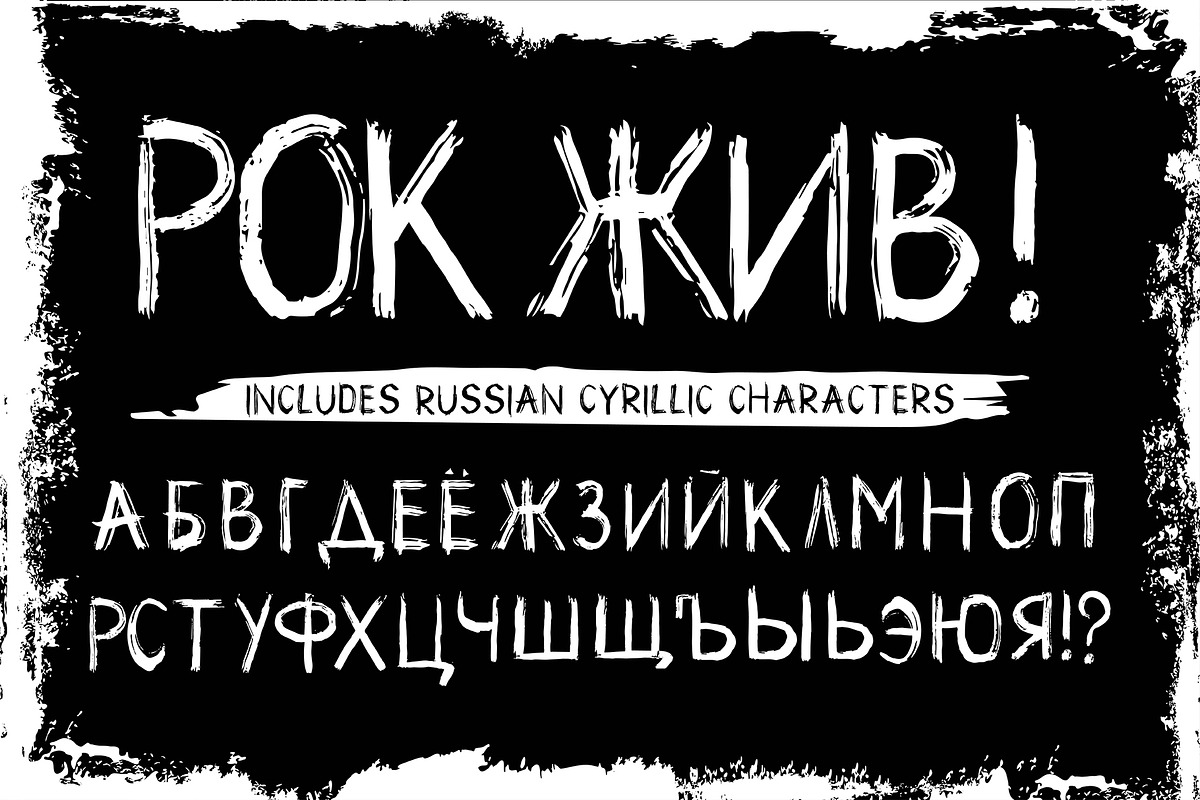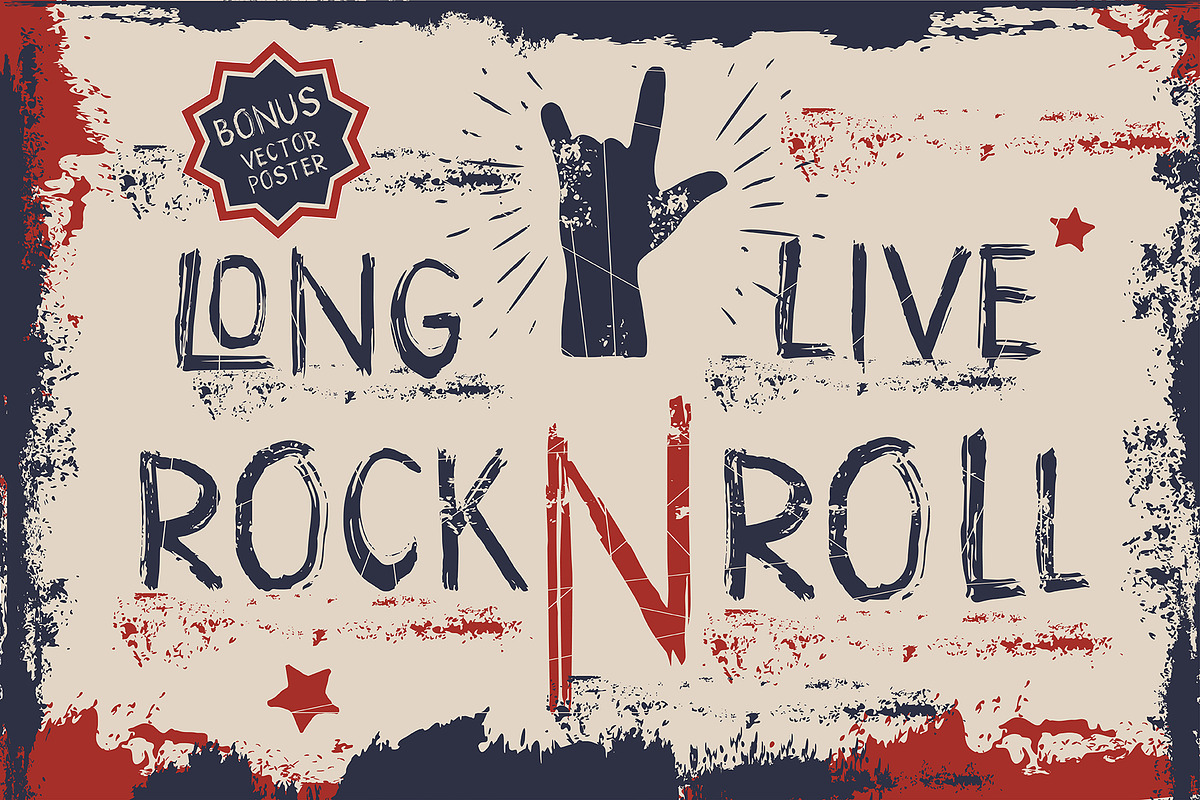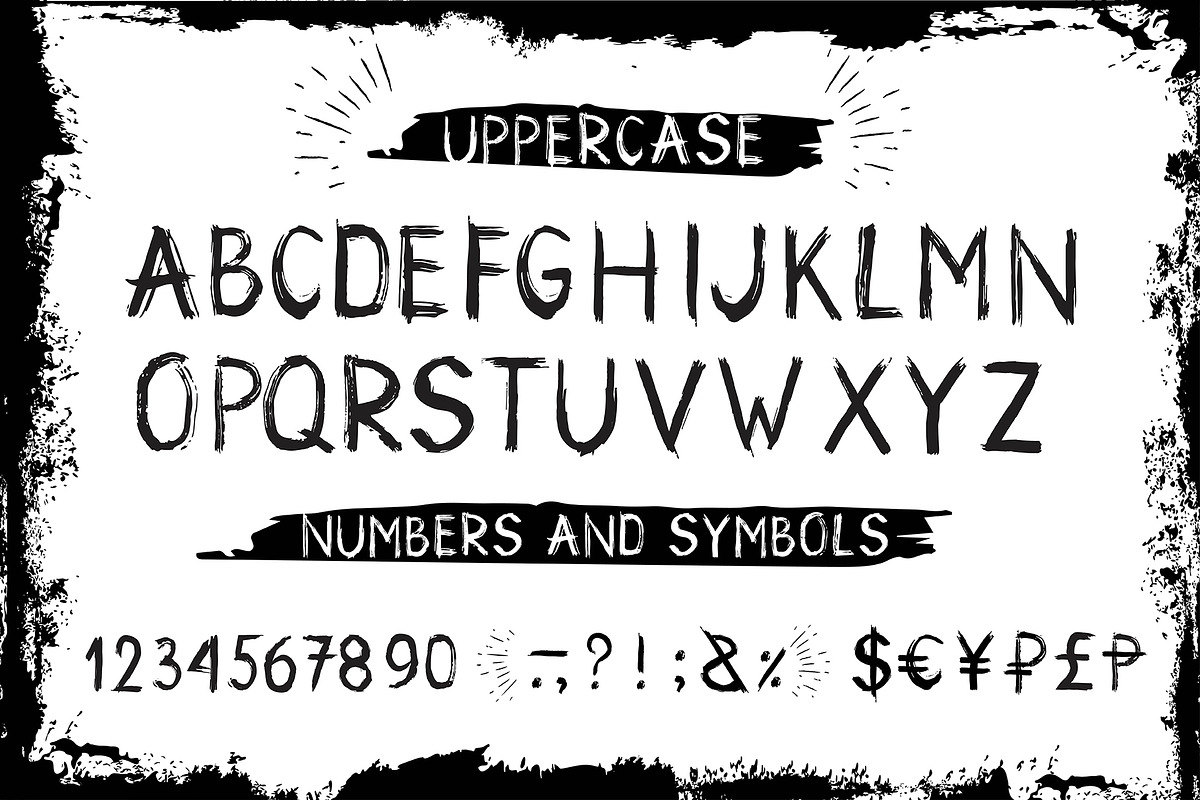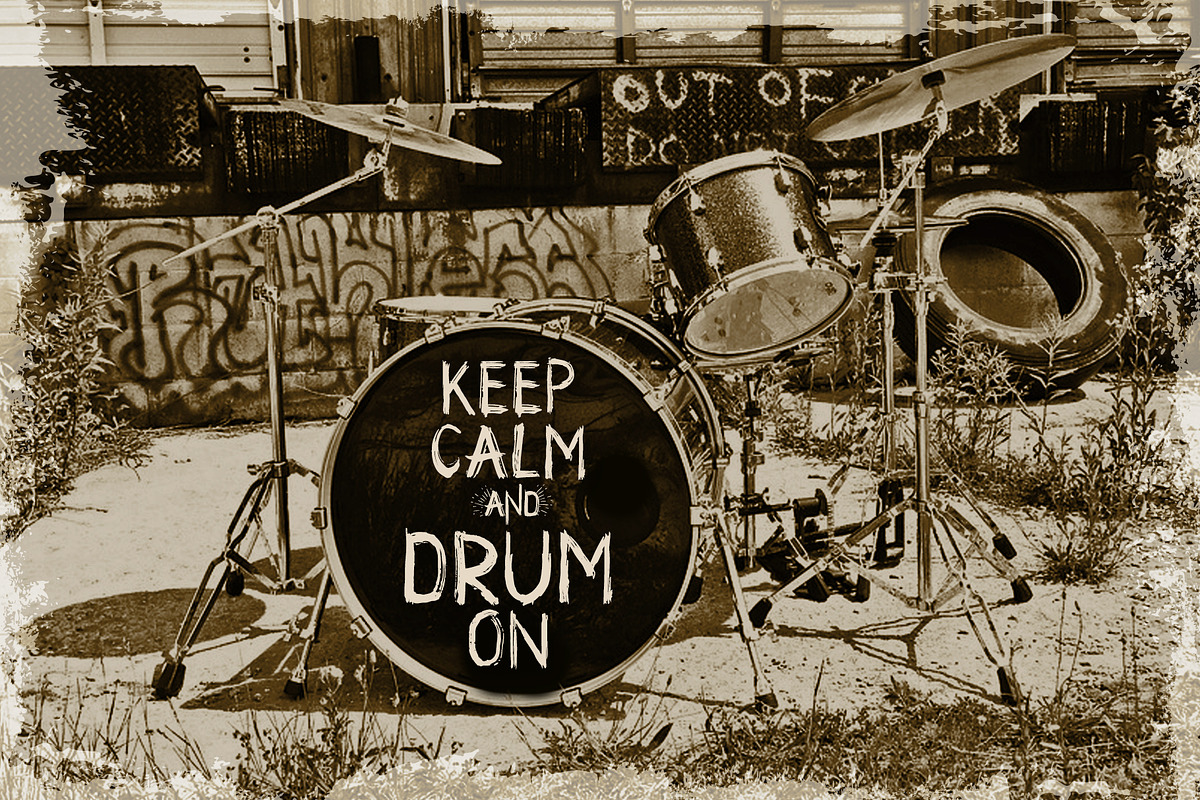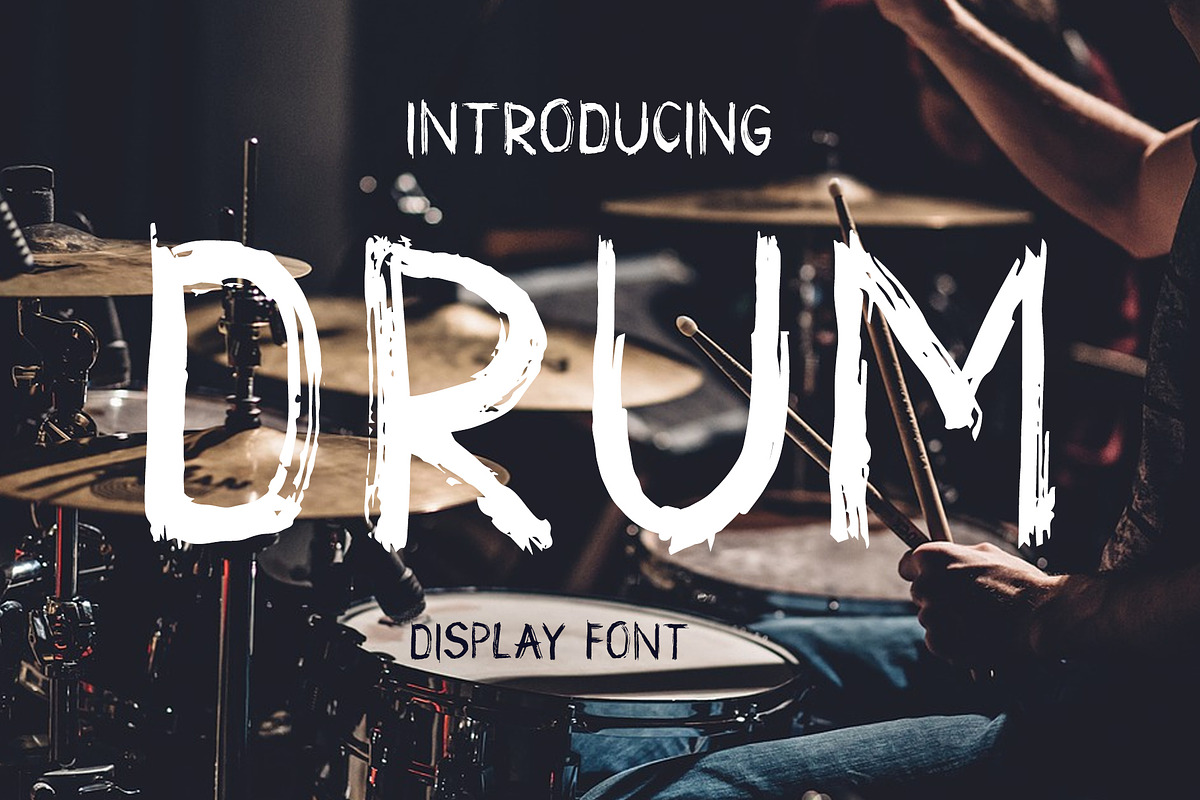
Drum. Handmade brush display font
Drum - handmade brush display font in grunge style. It's font no lowercase glyphs. That makes it perfect for headlines, design logos, quotes prints on t-shirts, rock festivals.
- Includes Russian Cyrillic characters.
- Contains only uppercase letters and digits.